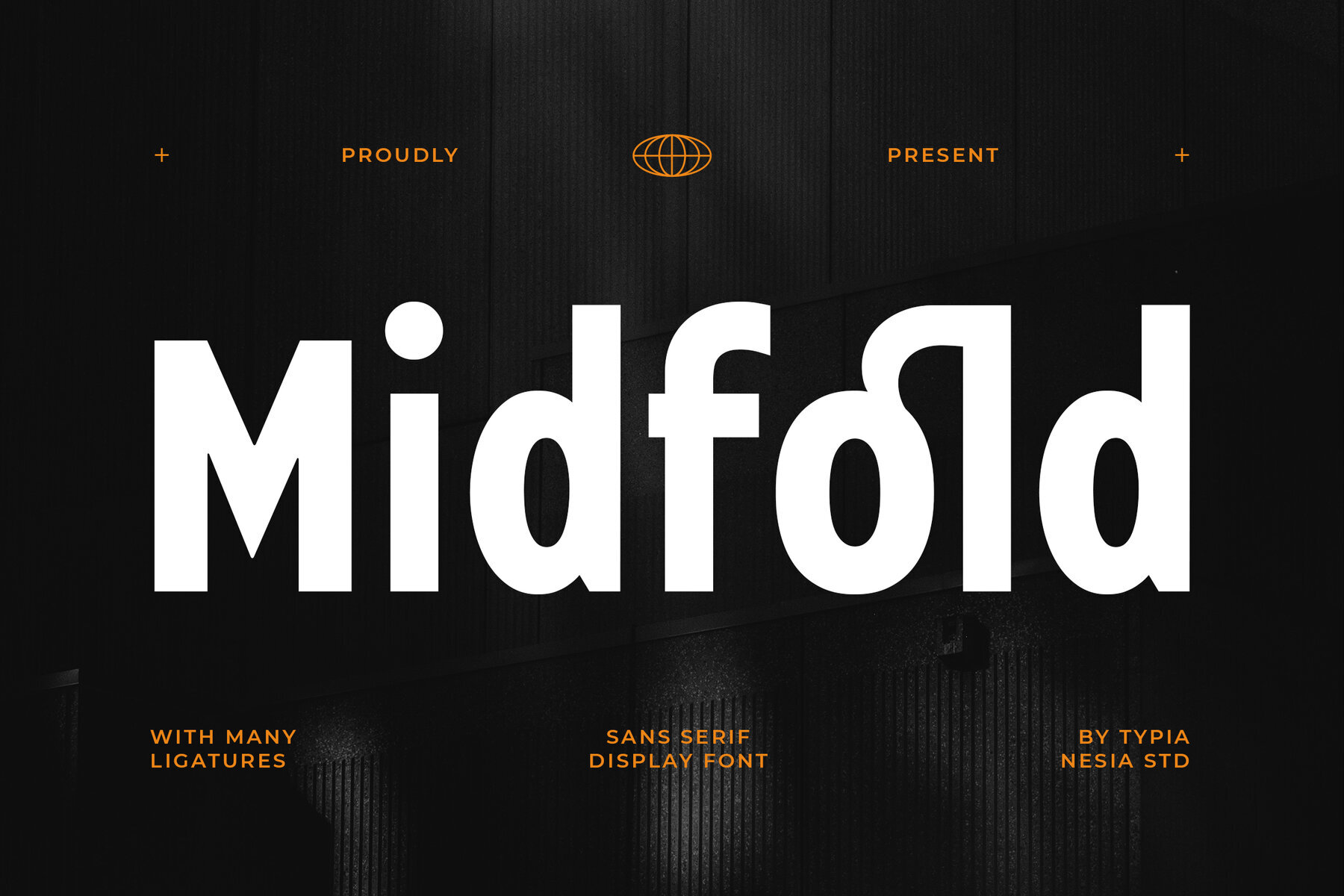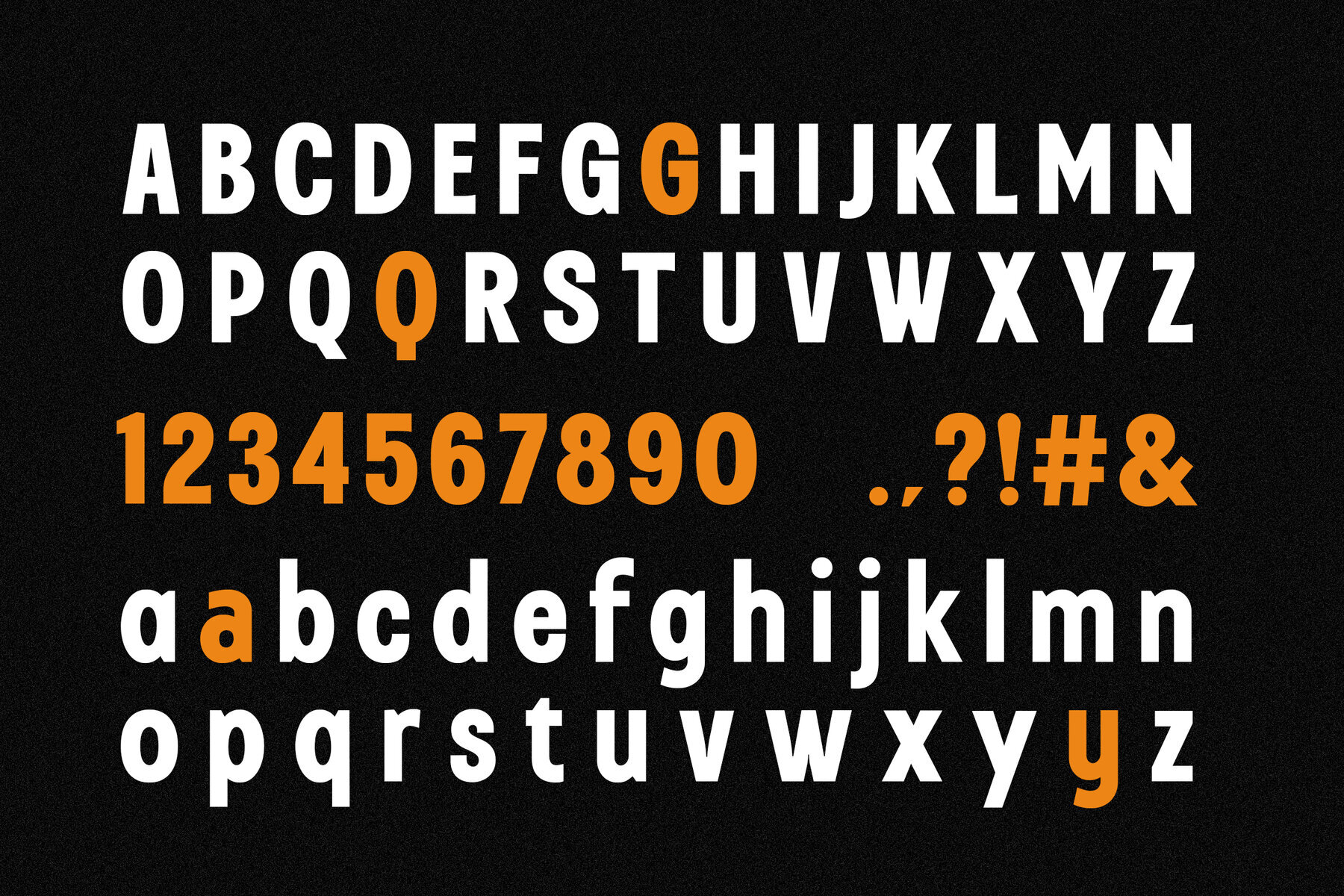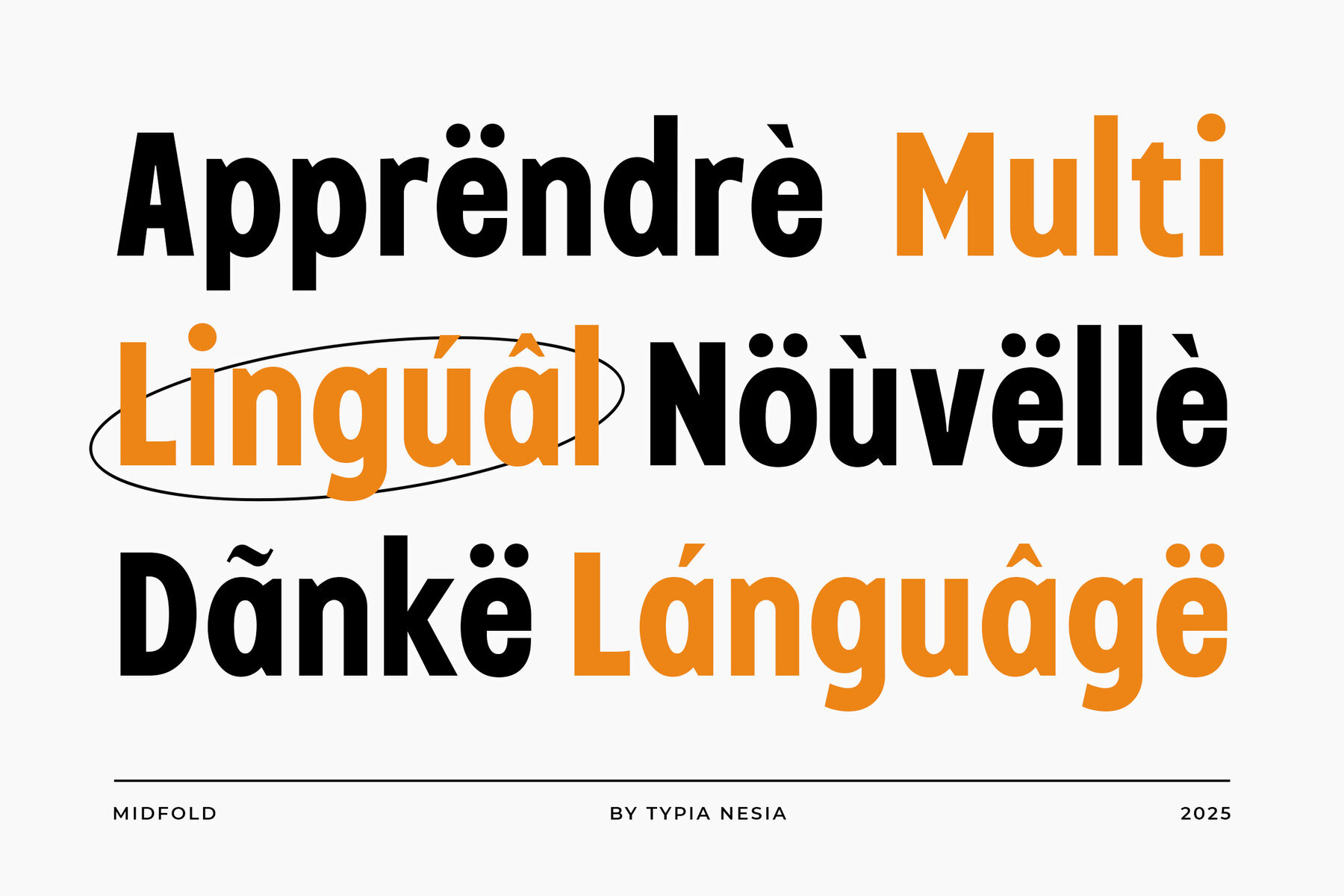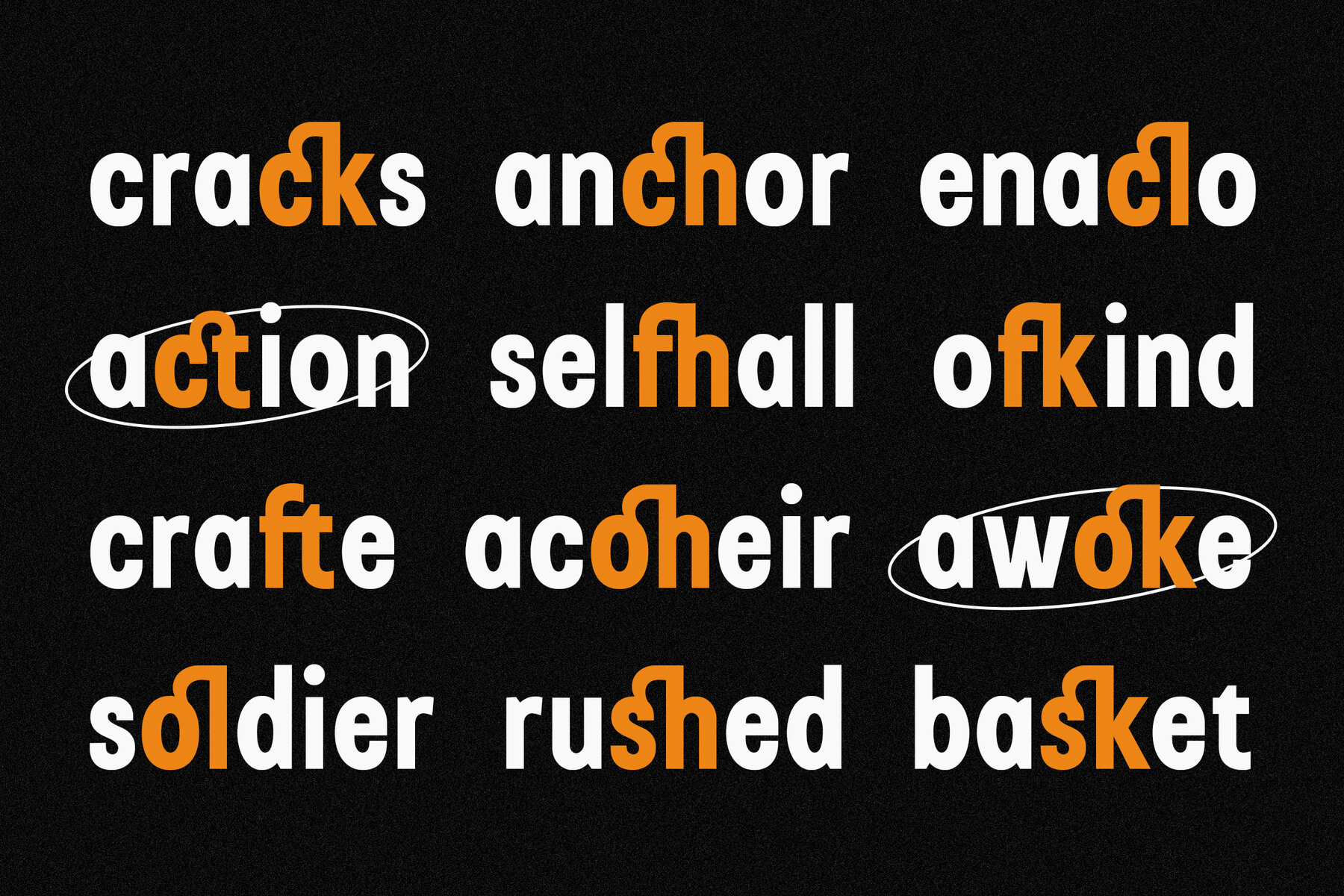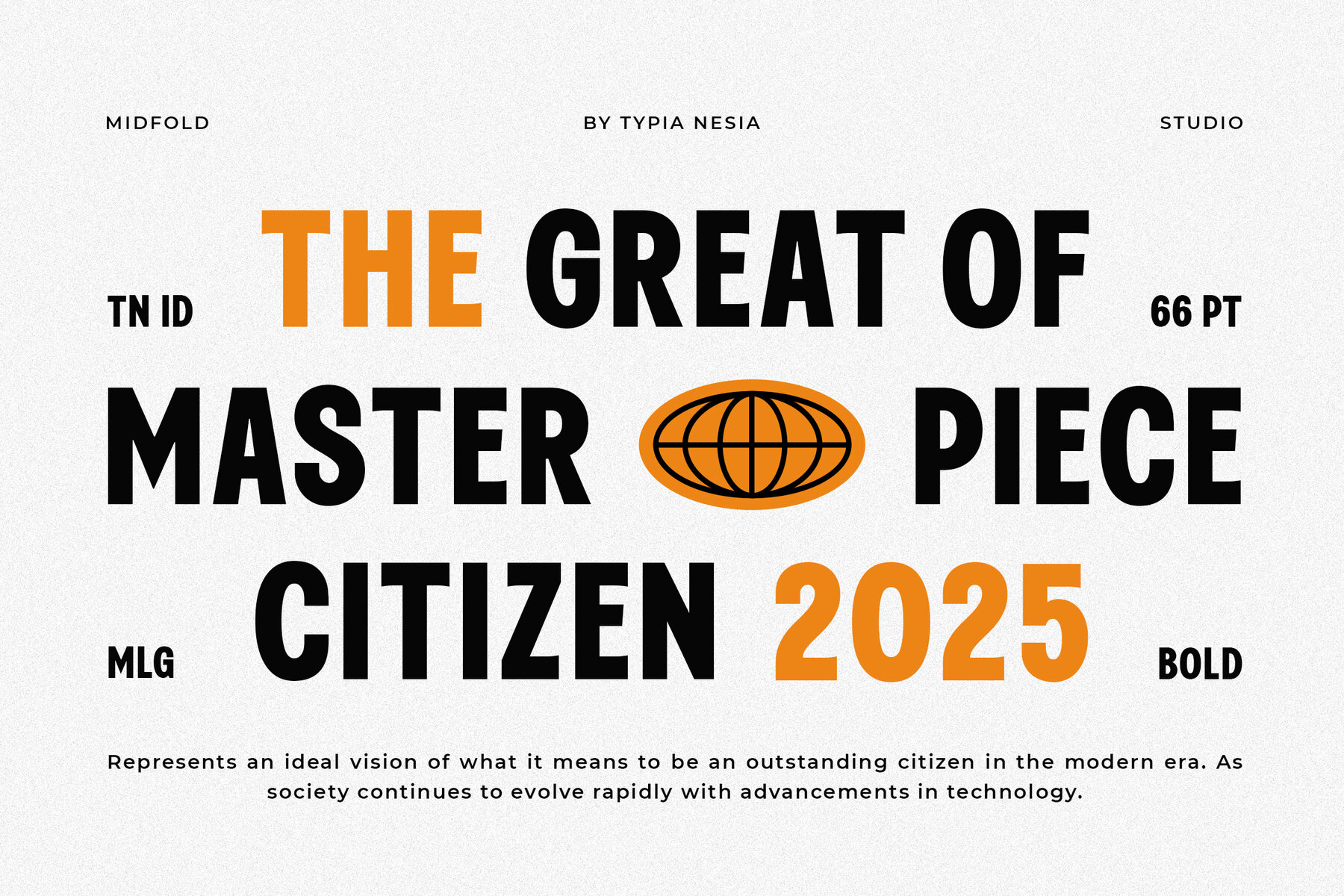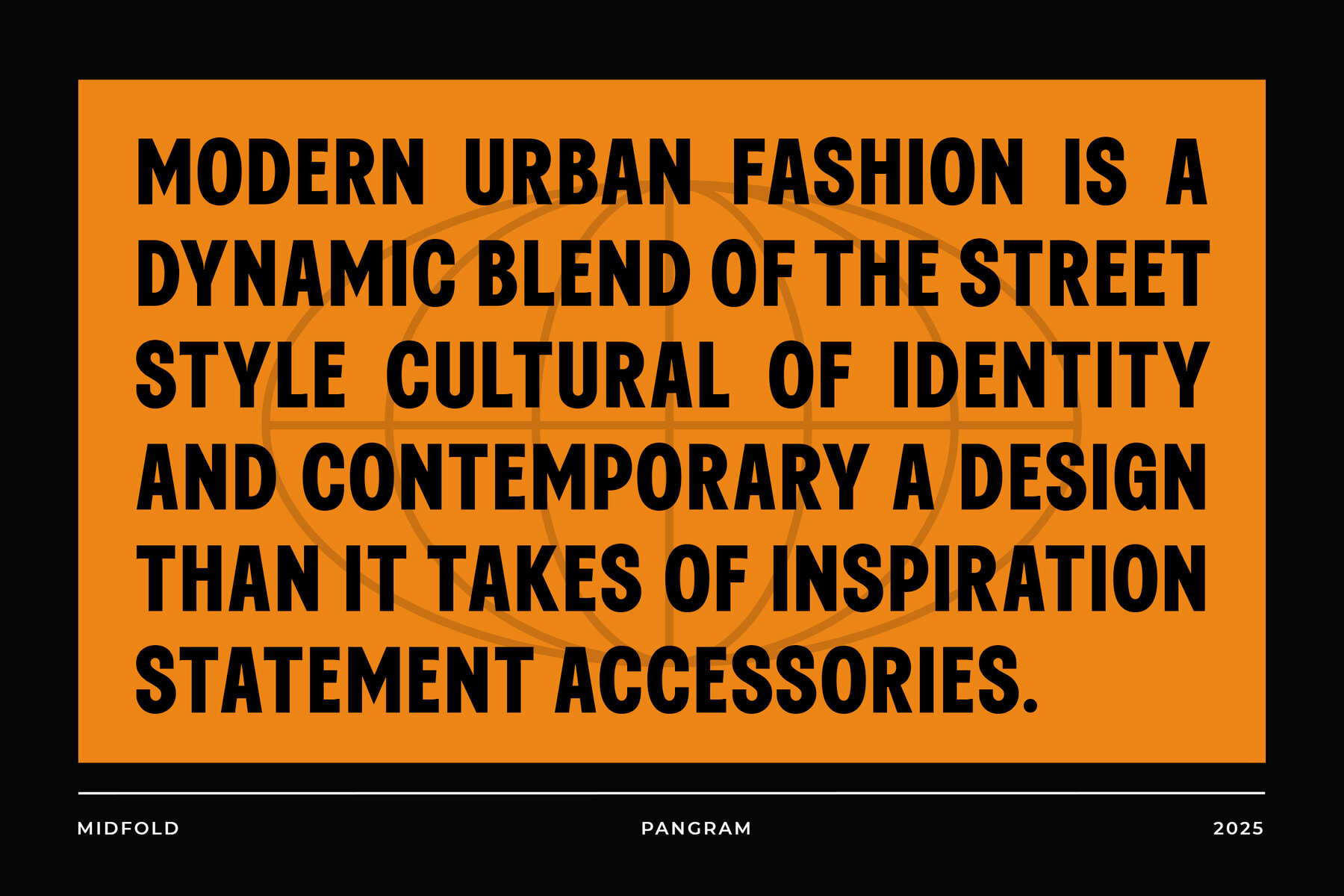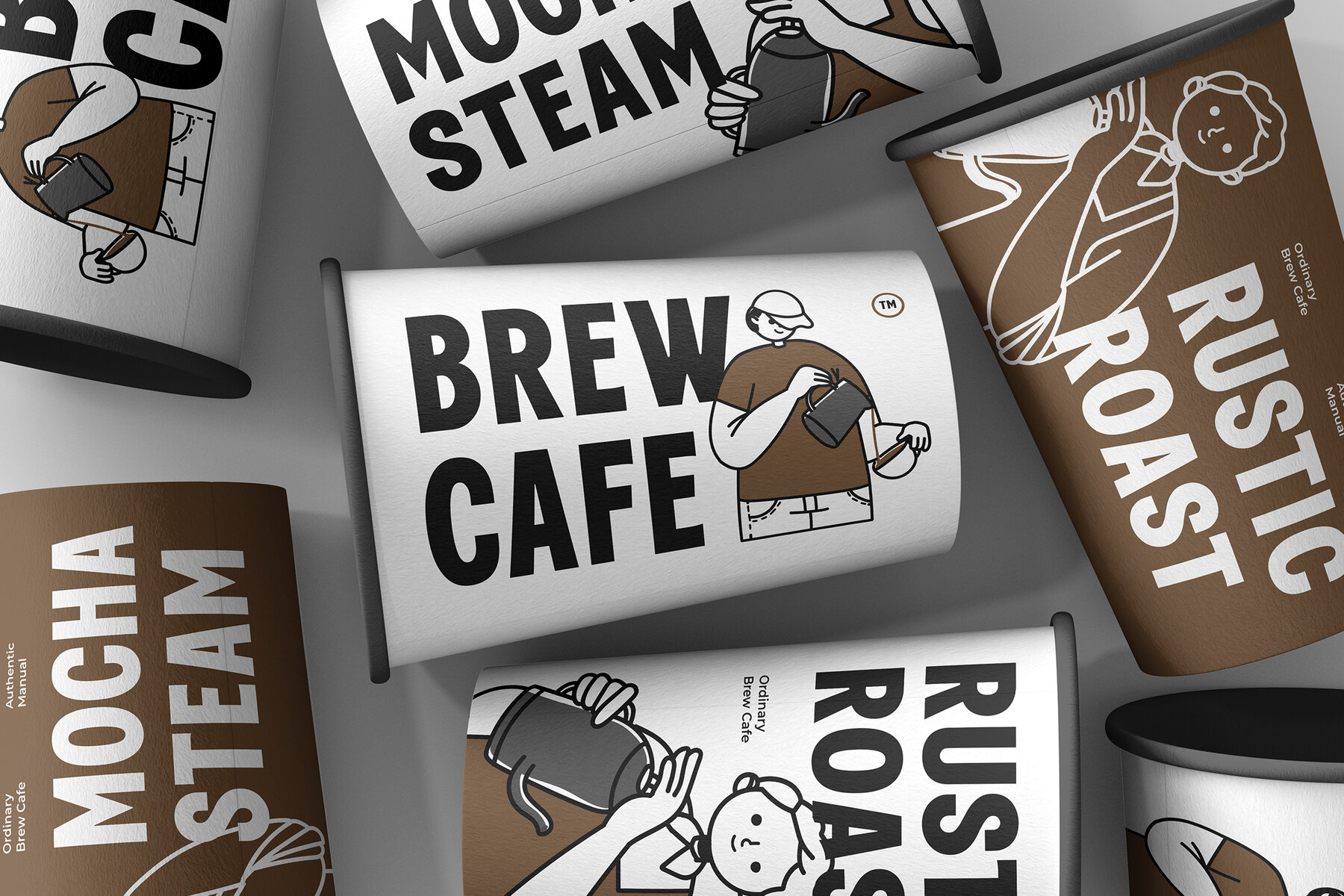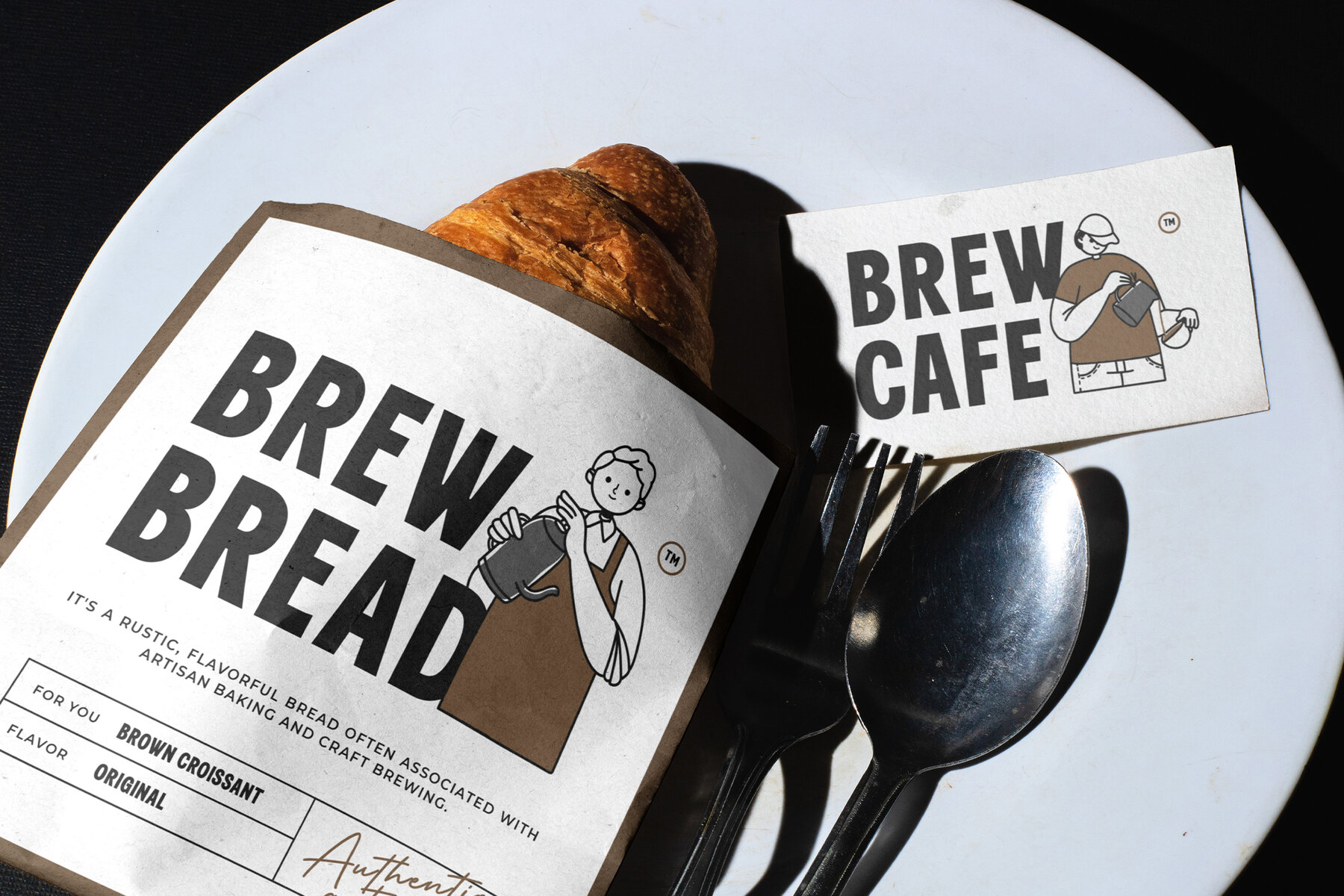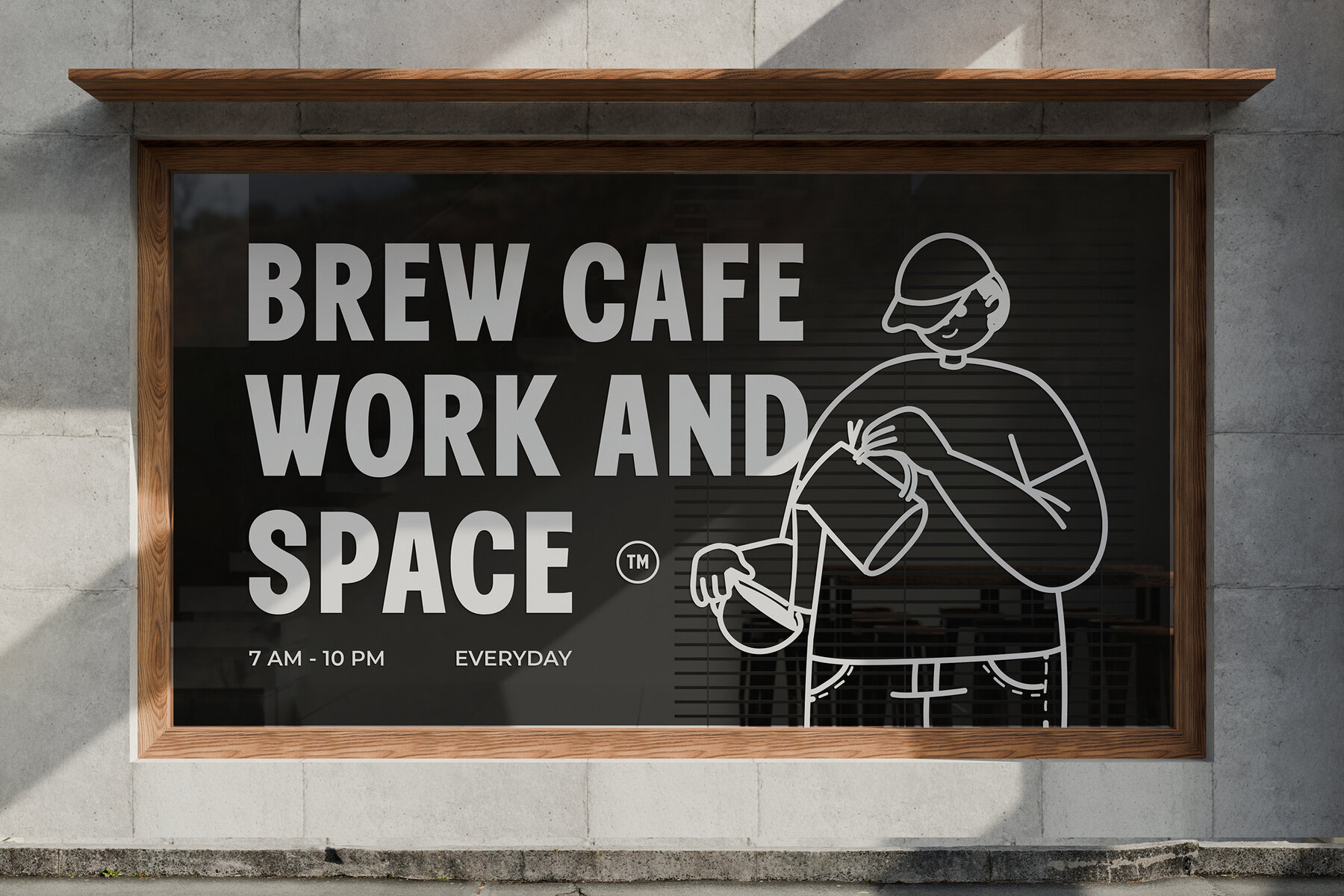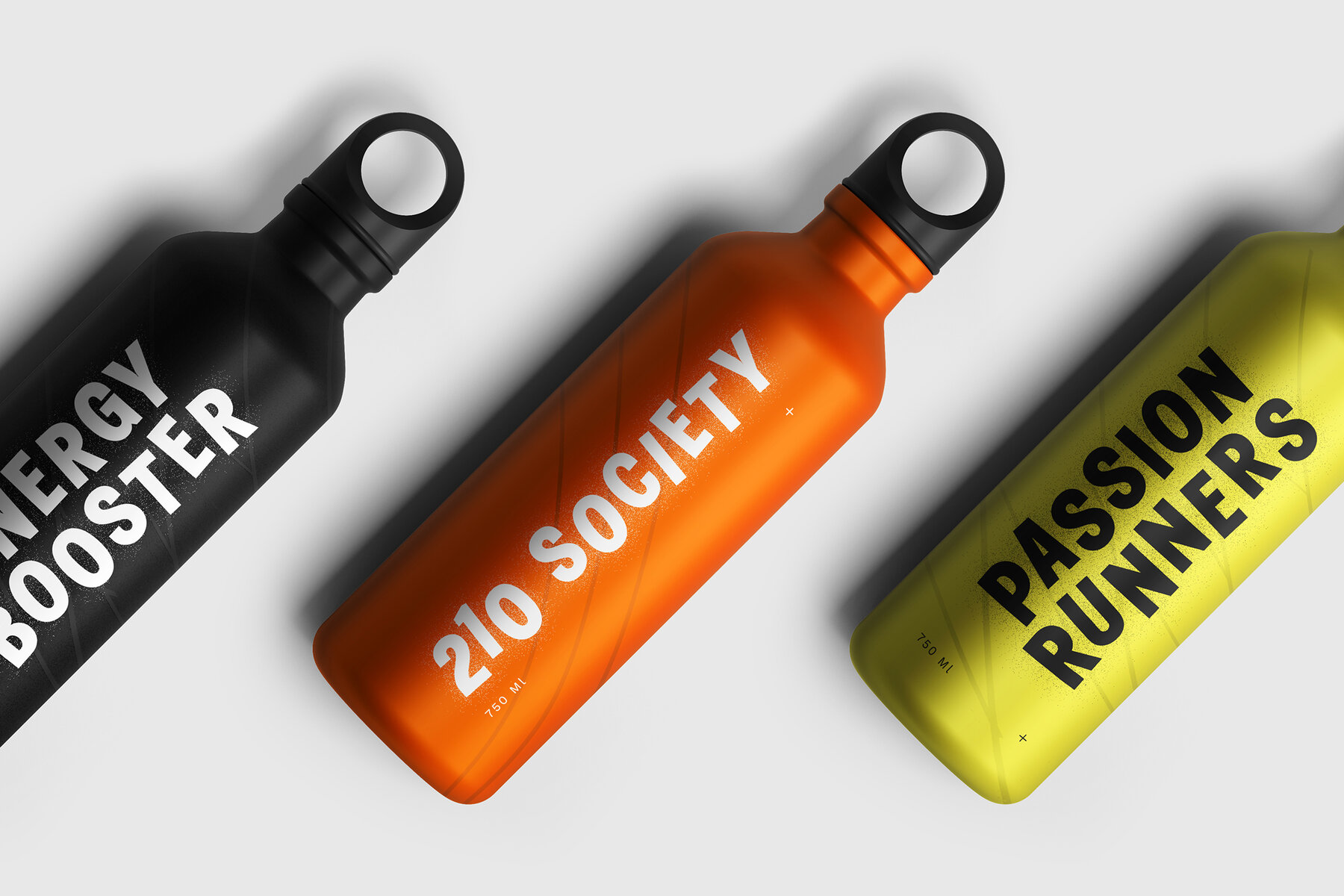
Midfold Font
Midfold Regular
Midfold is a compelling sans serif display font that exudes a modern and bold aesthetic. Ideal for headlines, logos, and branding, this font is perfect for making a memorable impact. Its clean lines enhance readability, making it suitable for packaging, posters, advertising, and digital designs. Additionally, its unique ligatures add distinctiveness to your projects. Choose Midfold for a contemporary, professional touch in your design work, and let its bold presence elevate your visual projects with confidence.Midfold: Bold and Modern Sans Serif Display Font